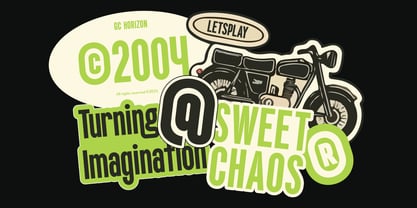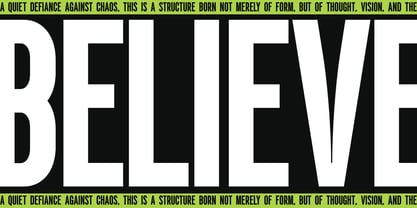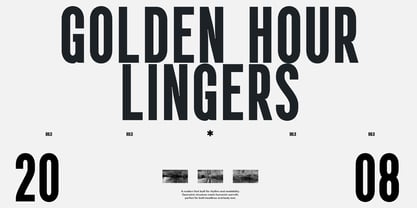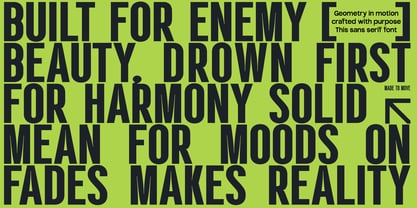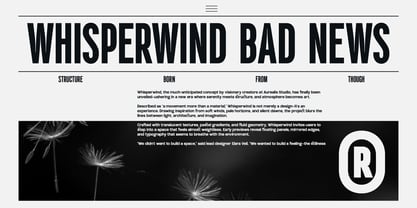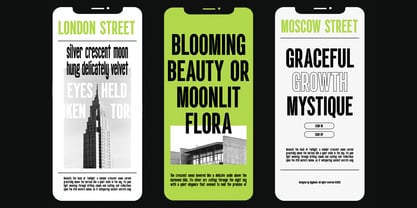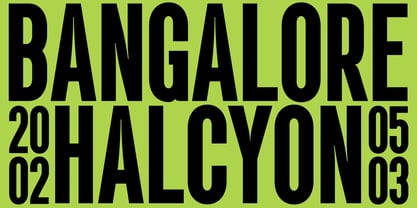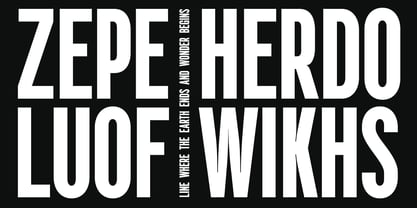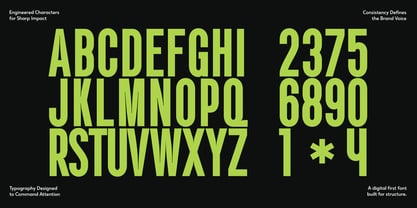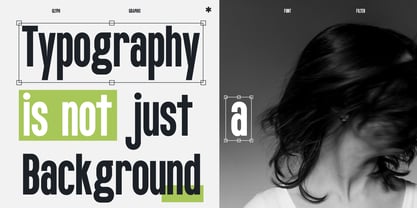
GC Conrode
by Onyx Studio
The GC Conrode Font Family was designed by Muhammad Hafiizh Solana and published by Onyx Studio. GC Conrode contains 2 styles and family package options. More about this family
GC Conrode - Modern Bold Condensed Font that blends modern Bold with Edgy style. Perfectly suited for headlines, branding, logos, packaging, editorial layouts, it’s crafted to leave a lasting impression. With its high contrast strokes, modern sans, and future style, GC Conrode brings personality and sophistication to any design. Whether you're designing for fashion, lifestyle, or artistic visuals, this typeface offers versatility and refined style. Features: + Uppercase & Lowercase + Numbers & Punctuation + Multilingual Support Make your design bold, refined, and timeless with GC Conrode.
Designers: Muhammad Hafiizh Solana
Foundry: Onyx Studio